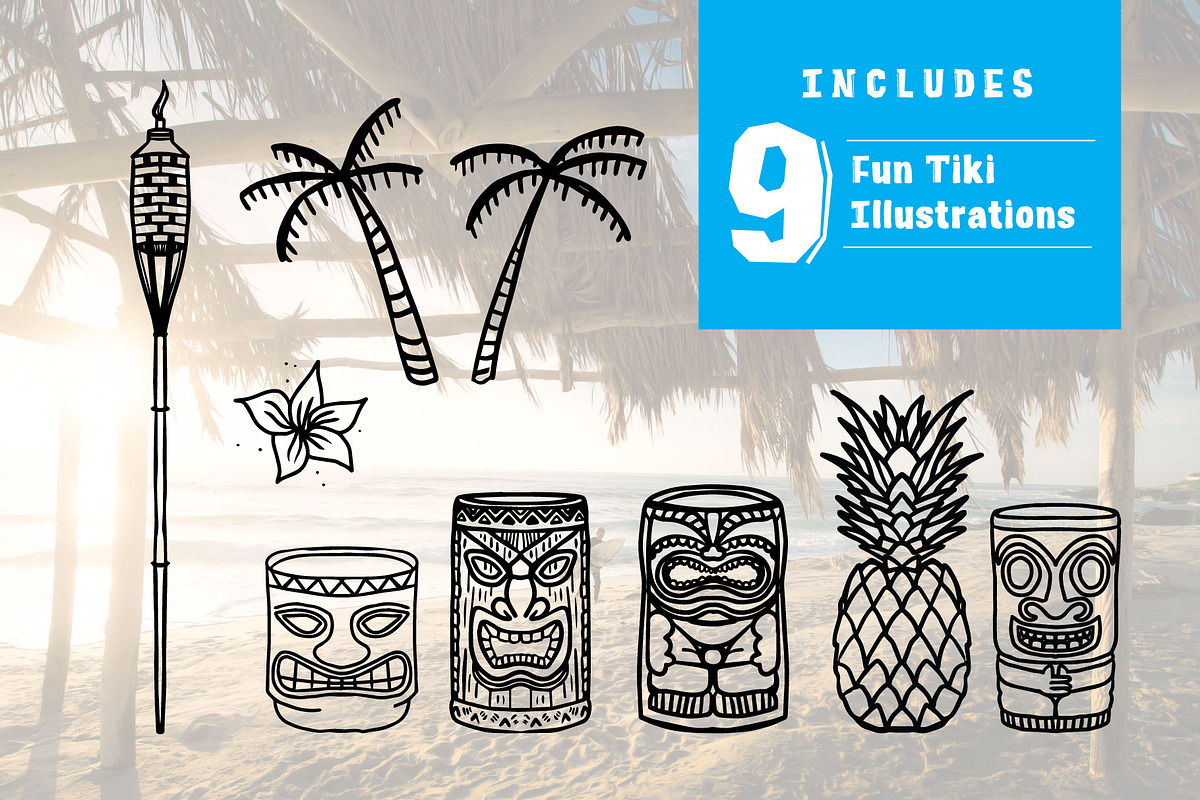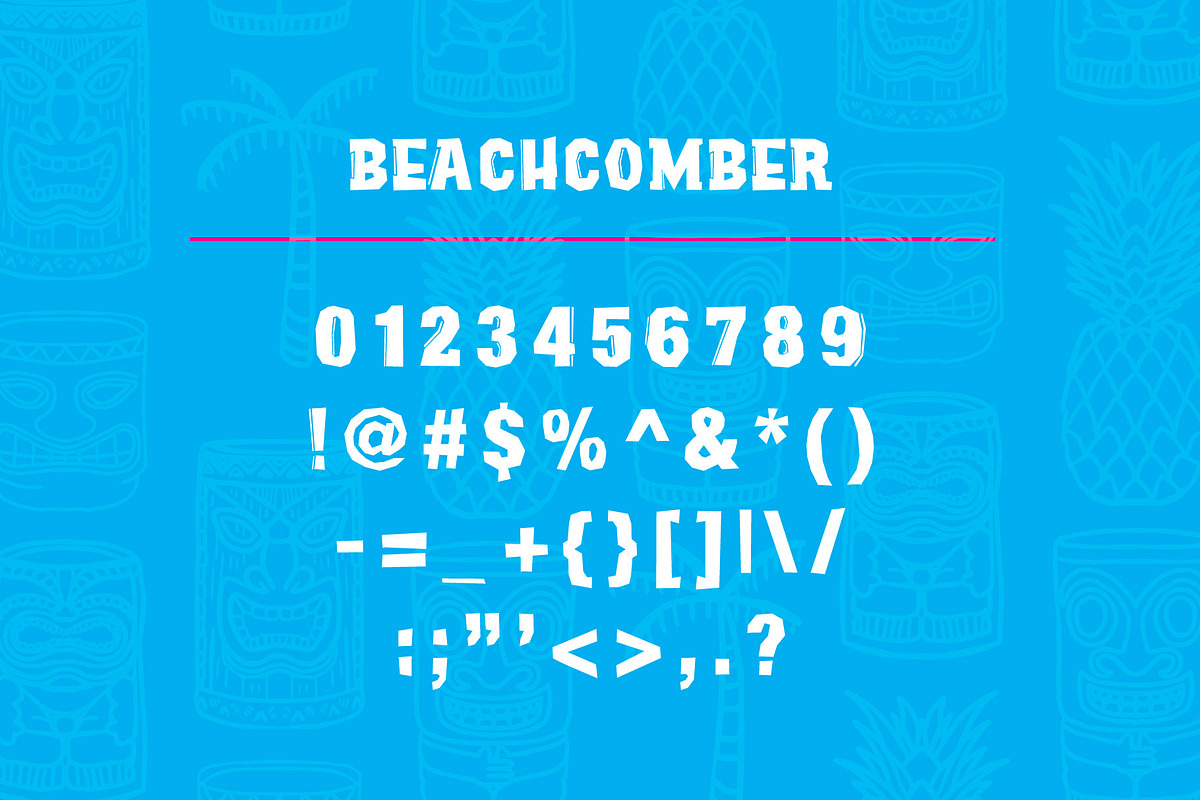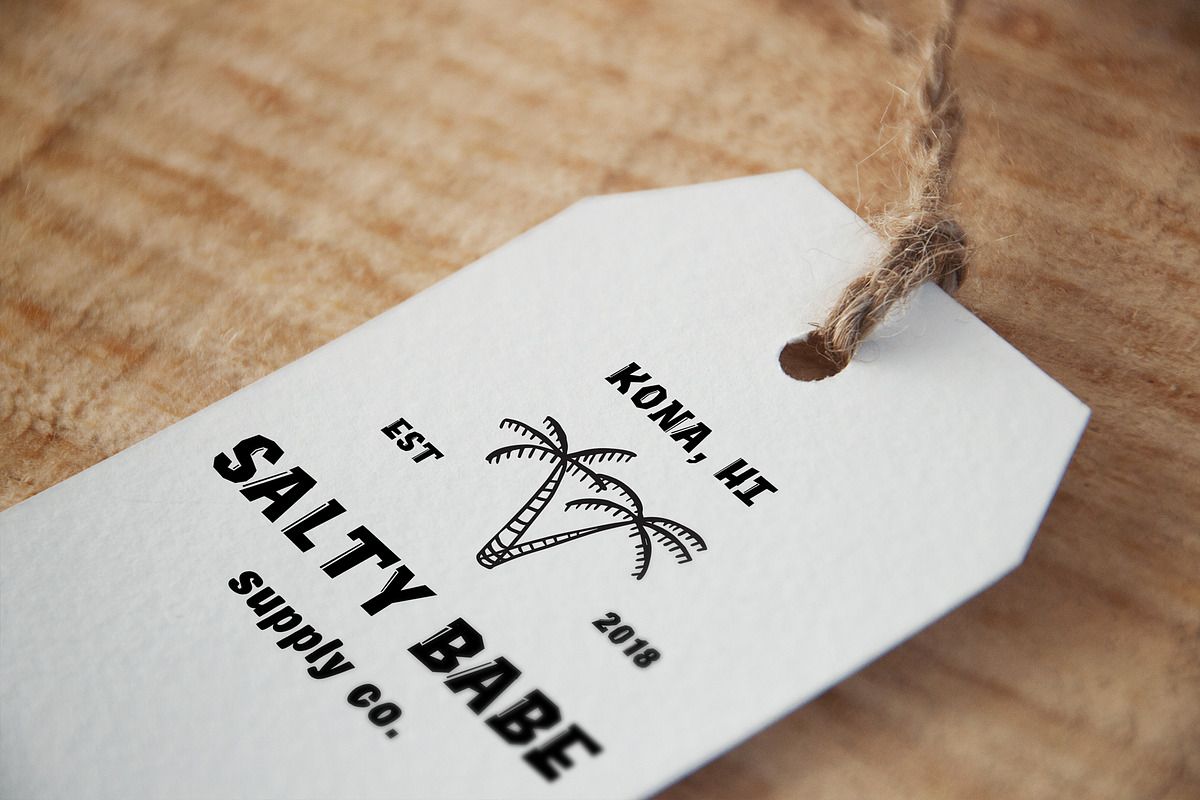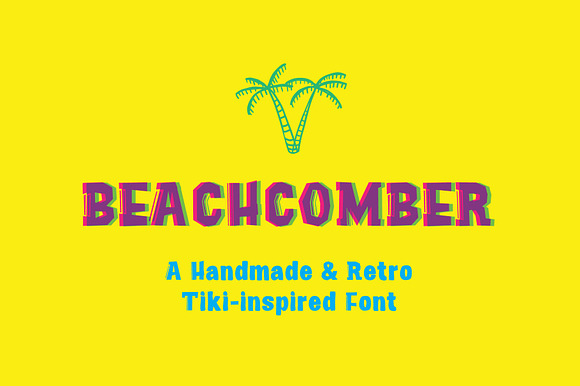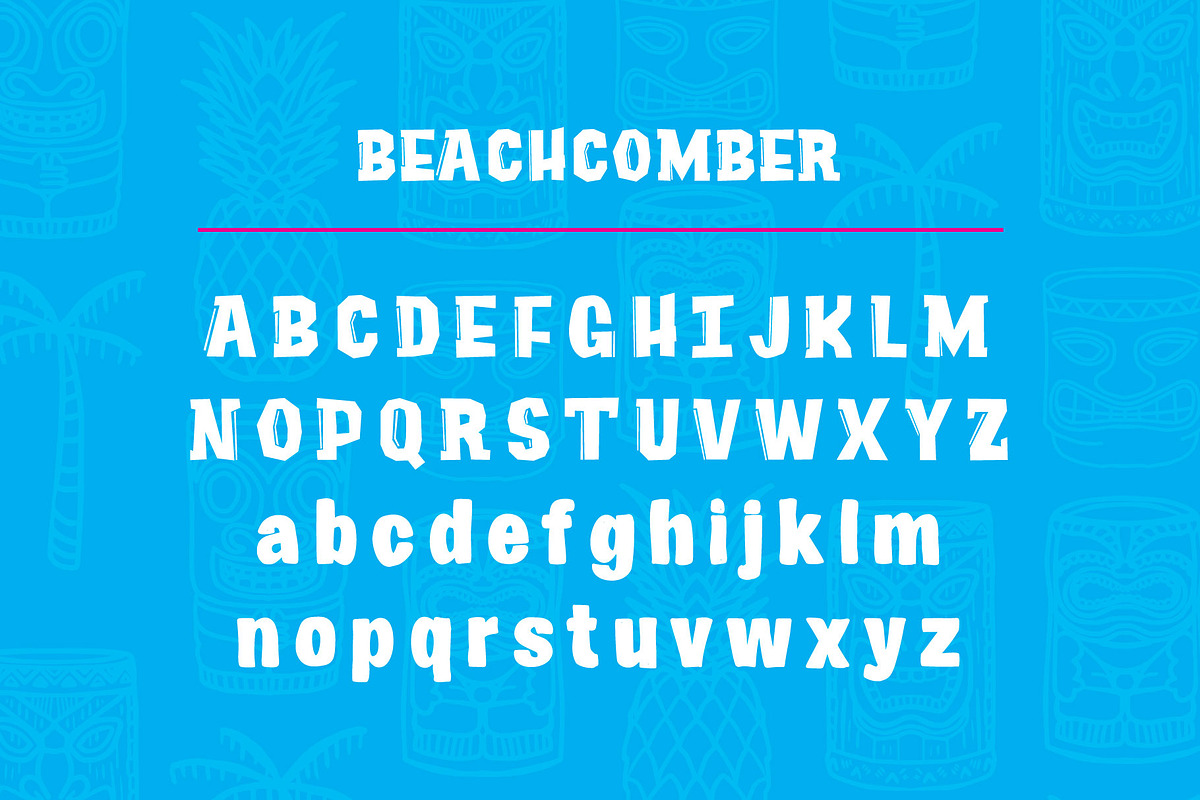
Beachcomber Font & Illustrations
Looking for that special font that will take nostalgically back to a humid bamboo dance hall? The taste of tequila and salt on your lips? The fruity warmth of a Mai Tai?
Look no further than Beachcomber, a handmade font inspired by the Retro Tiki style we all know and love.
This font was previously known as Caribbean Limbo, but due to cultural sensibilities I have changed it. Same font, new, more inclusive name!
- Also included is 9 hand drawn illustrations that pair perfectly with the Beachcomber Font!